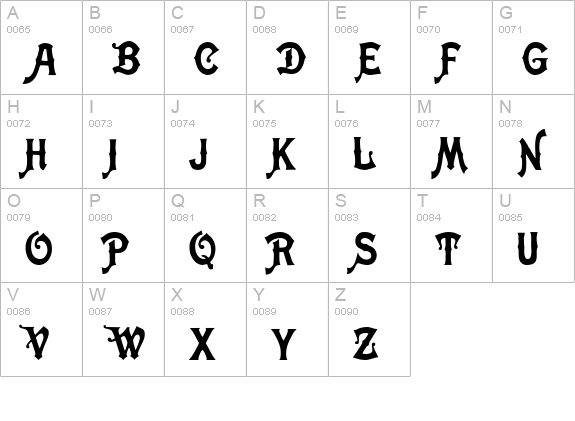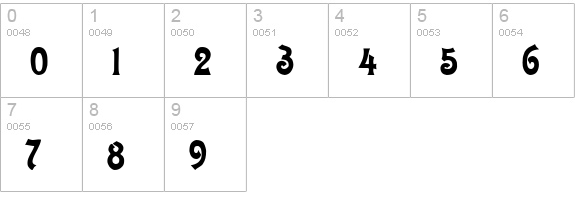
Meistersinger Font Details
Meistersinger font is a timeless and elegant typeface that exudes sophistication and charm. With its unique design inspired by medieval calligraphy, this font carries a sense of history and tradition while still maintaining a modern and versatile appeal. The fluid strokes and graceful curves of Meistersinger make it perfect for adding a touch of class to any project, whether it be invitations, logos, or branding materials. What's even better is that Meistersinger font is available for free download at FontsMarket.com, allowing you to easily access and use this exquisite typeface in your creative endeavors. Embrace the beauty and grace of Meistersinger font to elevate your designs and leave a lasting impression on your audience.